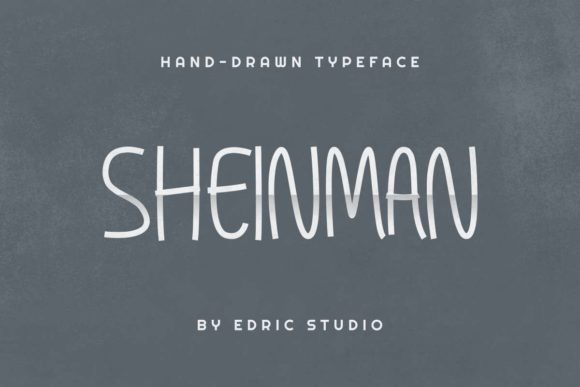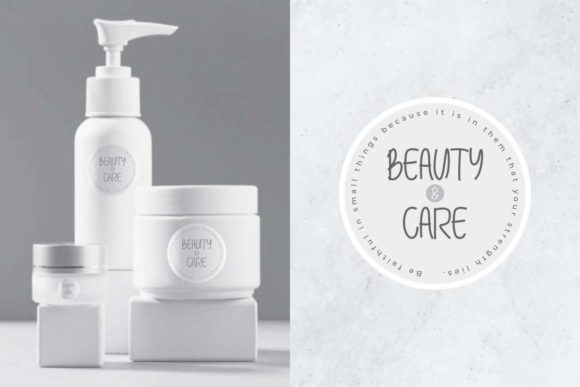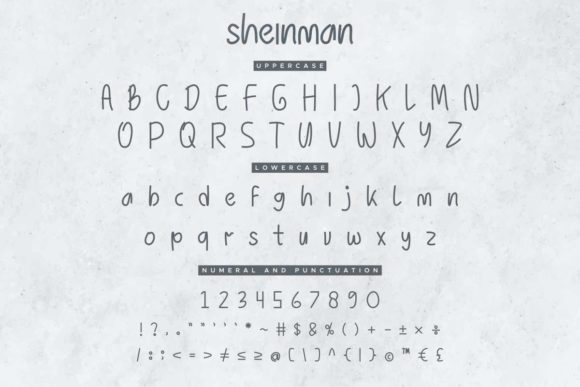
About Sheinman Font
“Sheinman” is an adorable and quirky handwritten font that exudes playfulness and authenticity. Its unique style makes it an excellent choice for various children’s activities and school projects. Here are some exciting ways to use the “Sheinman” font and bring your designs to life:
1. Children’s Books: Create captivating book covers and titles using the “Sheinman” font for children’s storybooks and educational materials.
2. School Worksheets: Design engaging and fun school worksheets with the font to make learning more enjoyable for young students.
3. Classroom Posters: Use the font to design colorful and eye-catching posters for classroom decorations, featuring motivational quotes or educational content.
4. Kids’ Games and Activities: Design interactive games, puzzles, and activity sheets for kids using the playful “Sheinman” font.
5. Art Projects: Apply the font in art projects and craft activities to add a touch of whimsy and creativity.
6. Birthday Invitations: Create adorable and personalized birthday invitations with the font, perfect for kids’ parties.
7. Party Decorations: Use the font to design banners, party hats, and other decorations for children’s celebrations.
8. School Presentations: Add the font to school presentations to engage young audiences and create a fun learning environment.
9. Parenting Blogs: Incorporate the “Sheinman” font in parenting blogs and websites to create a friendly and approachable vibe.
10. Children’s Apparel: Apply the font to design playful graphics and slogans for children’s clothing and accessories.
11. Coloring Books: Create custom coloring books with the font, featuring cute illustrations and encouraging messages.
12. Educational Videos: Use the font in animations and educational videos for a cohesive and fun visual experience.
The “Sheinman” font’s charm and uniqueness will undoubtedly bring a sense of joy and excitement to any project it is used in. Its versatility allows you to explore various applications, making it a wonderful addition to any designer’s toolkit. Embrace the playfulness and authenticity of “Sheinman” font, and watch as it brings your children’s activities and school projects to life in a delightful and memorable way!